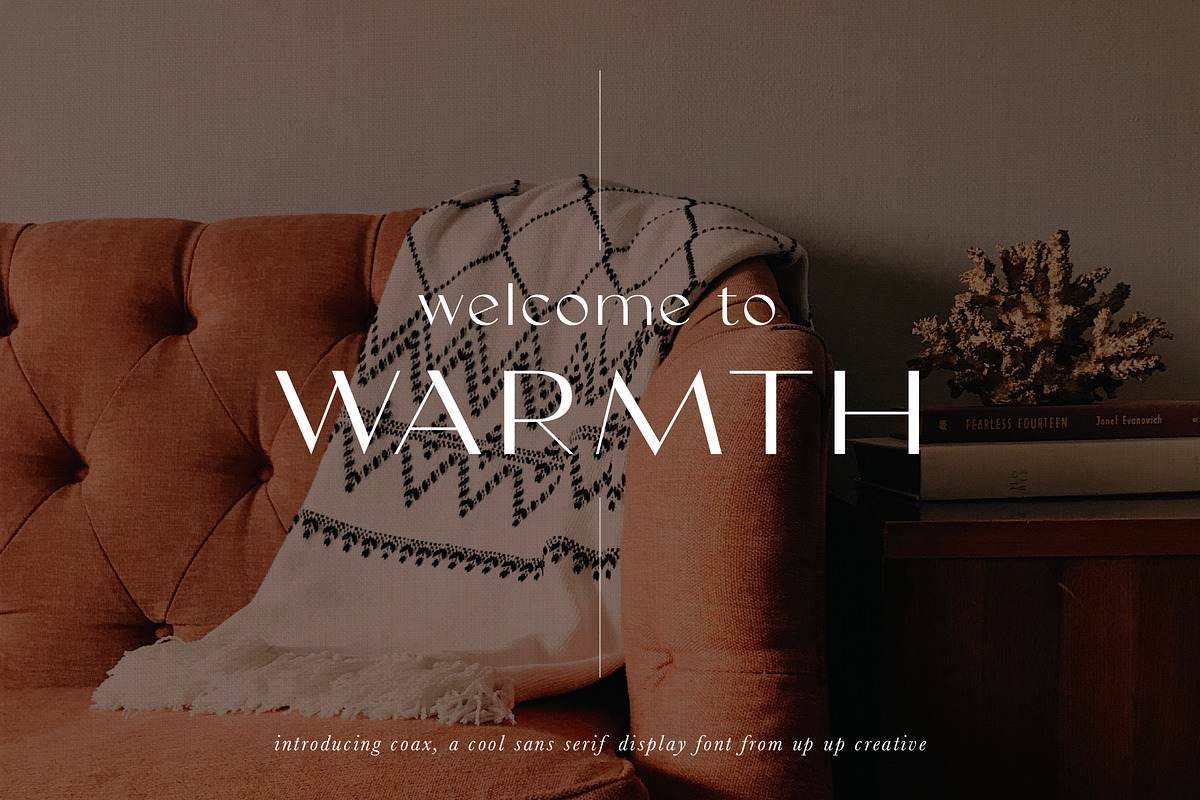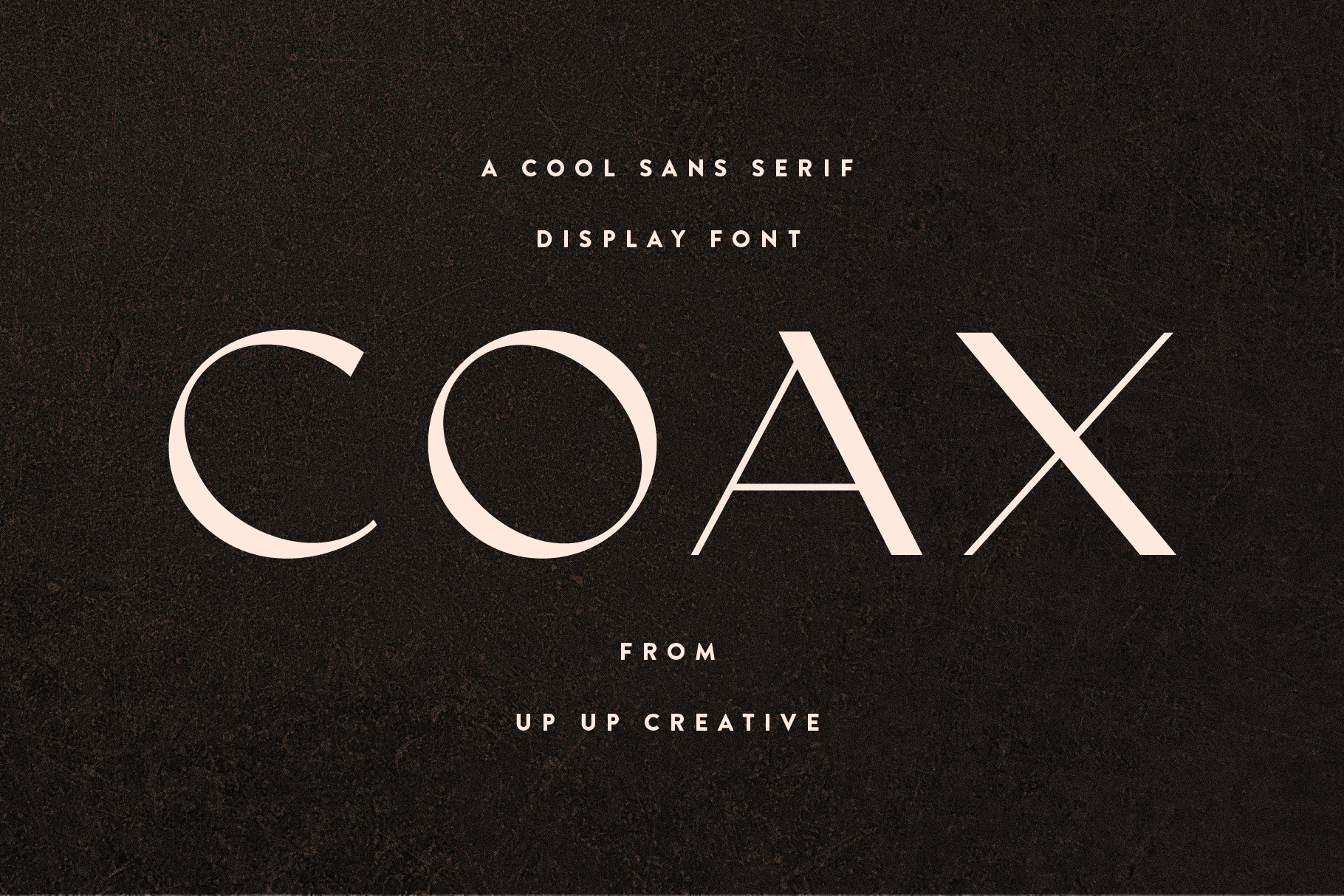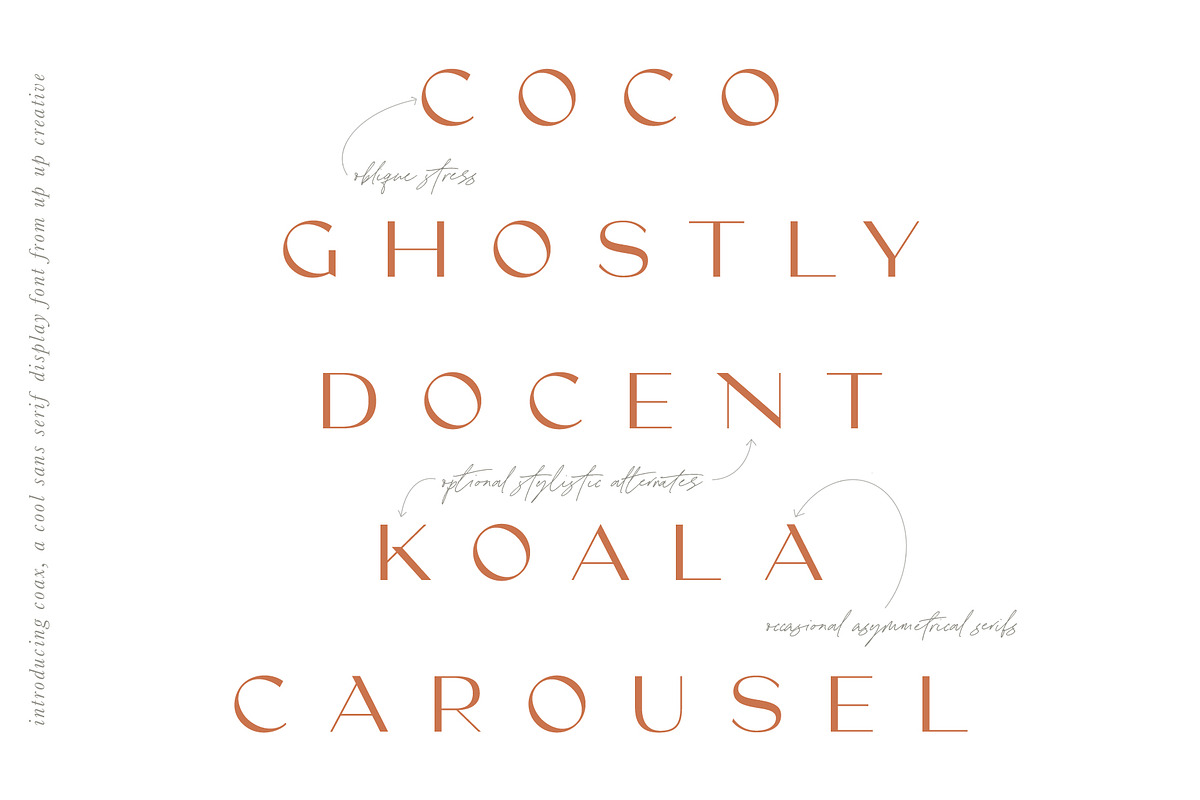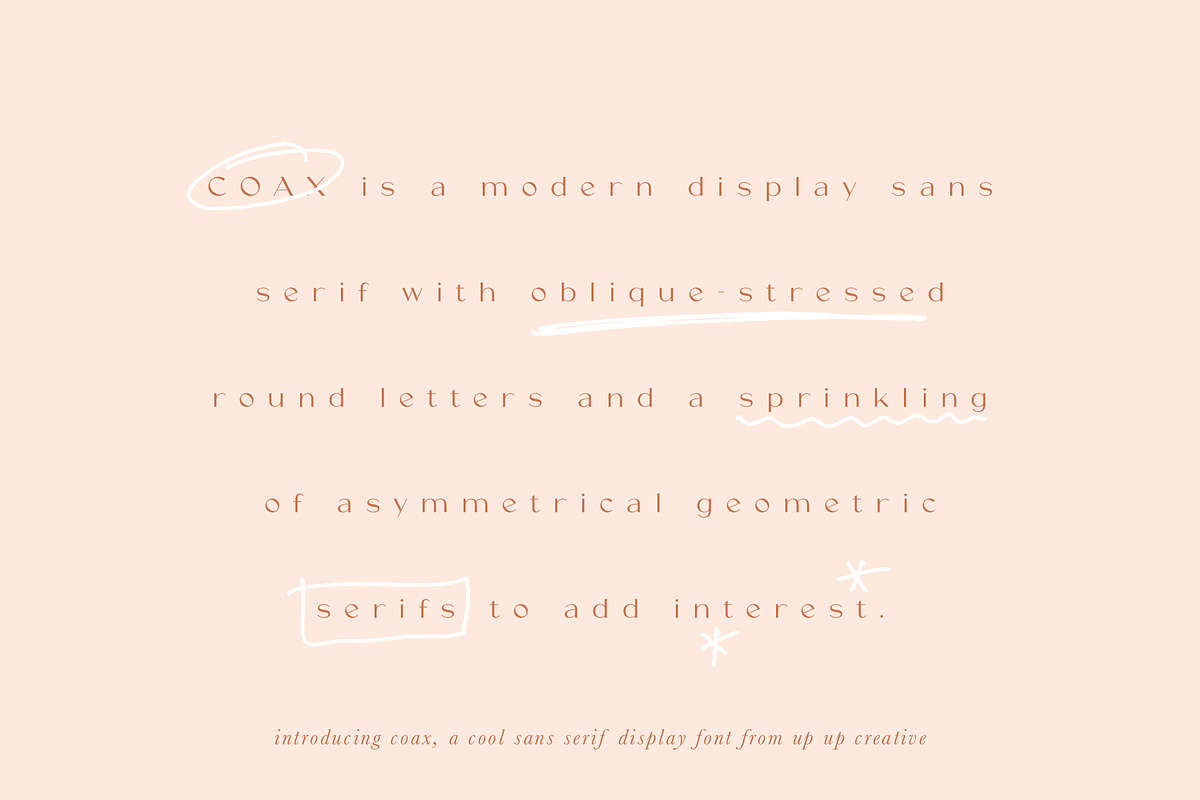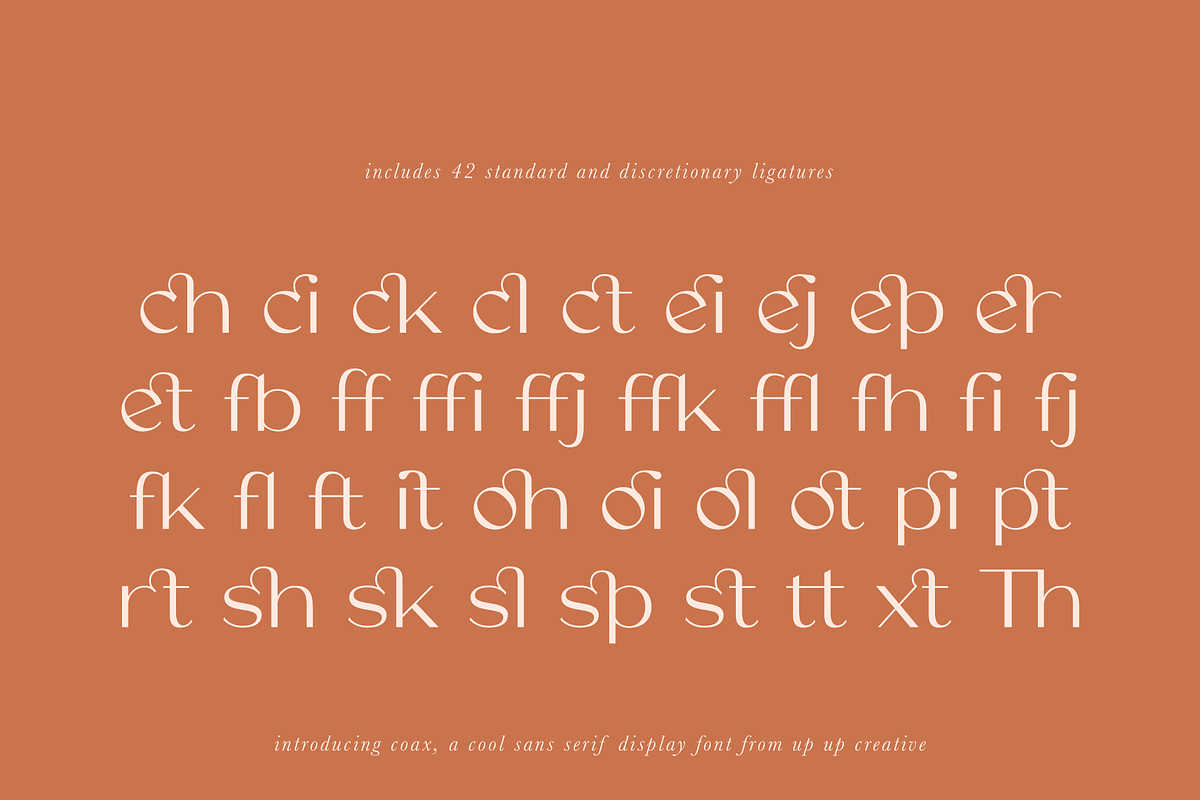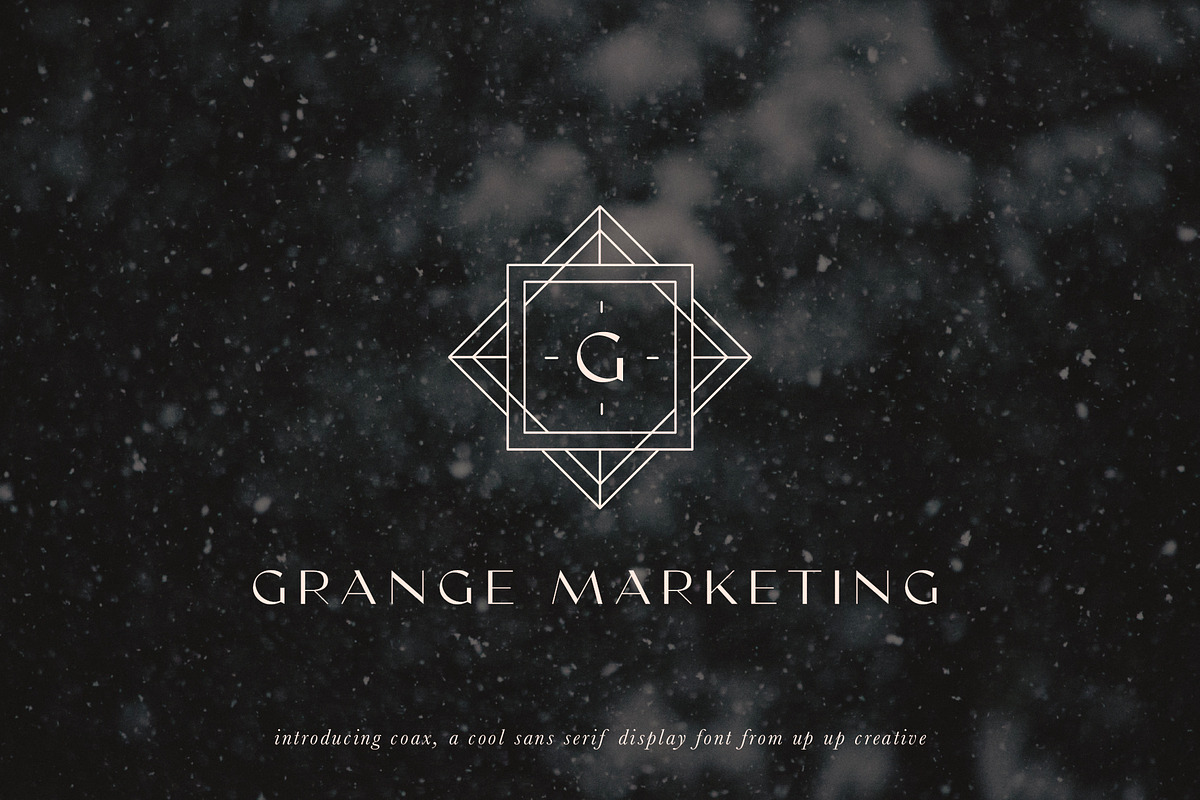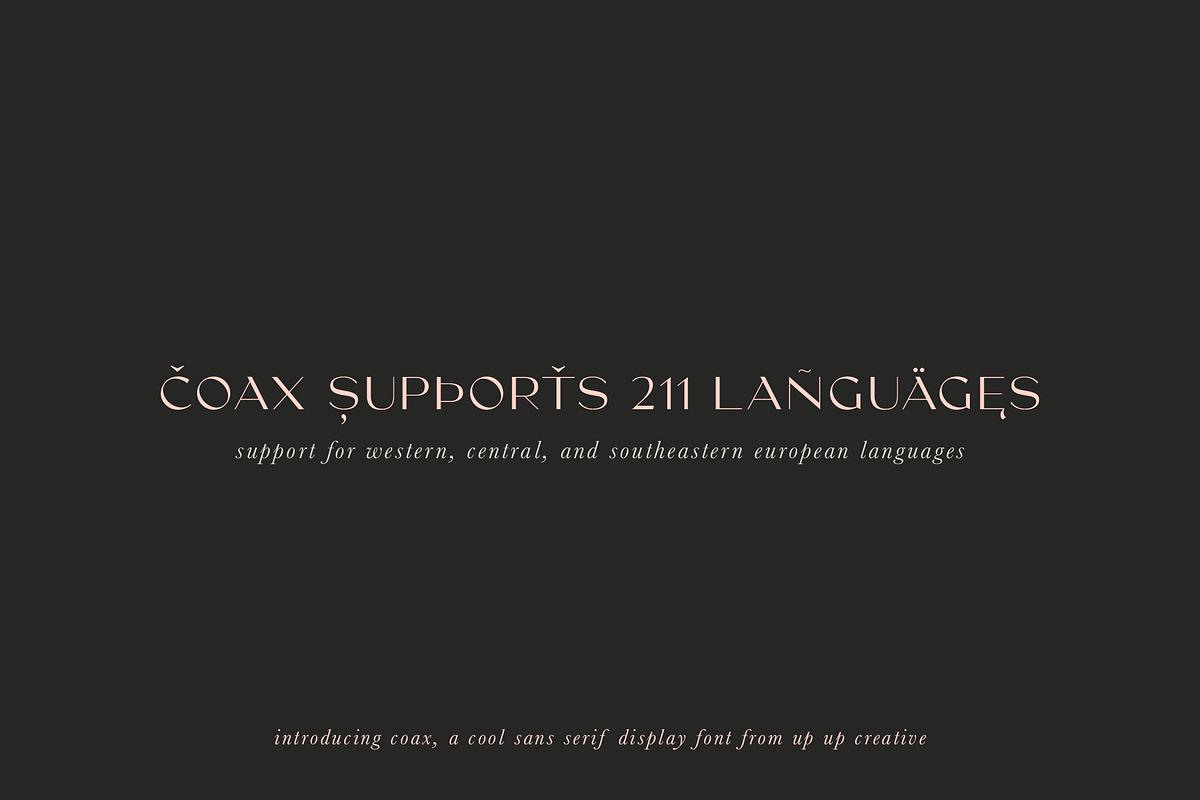
Coax, A Cool Sans Serif Display Font
Coax is a cool (mostly) sans serif display font with high-end details like oblique-stressed round letters and a sprinkling of asymmetrical geometric serifs. Coax is destined for your next branding, advertising, or editorial design project. Also Great for headlines, monograms, logos, wedding invitations, and more.
Coax includes approximately 530 glyphs, including 42 standard and discretionary ligatures.
OpenType features include a smattering of character variants and multilingual support (including multiple currency symbols).